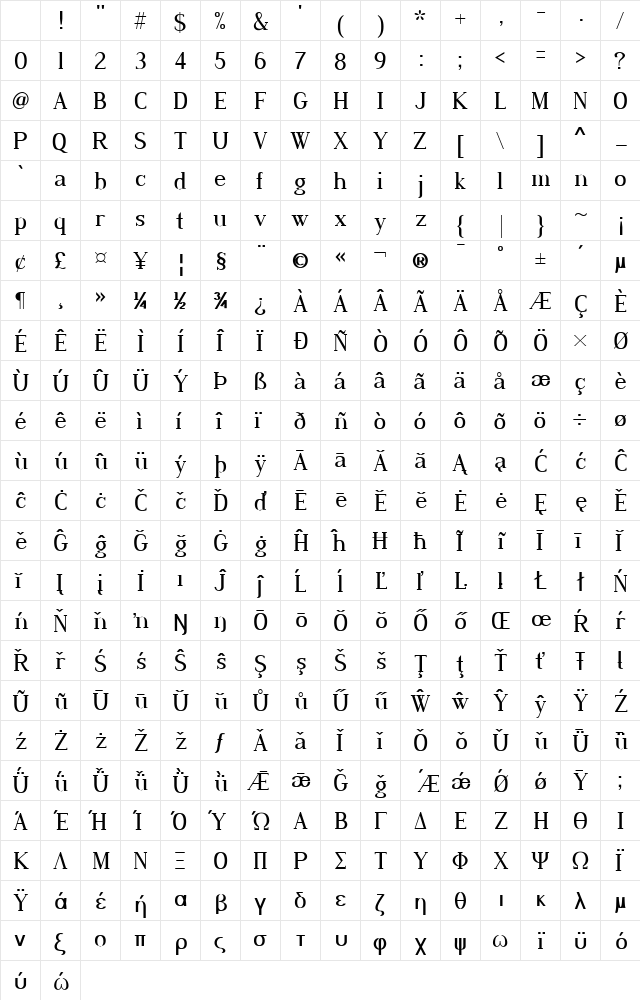
Complete Dustismo Roman Regular glyph index. Displaying only characters natively supported by Dustismo Roman Regular font.
Dustismo Roman is a composed and adaptable typeface that performs quietly and consistently across a wide range of design contexts.